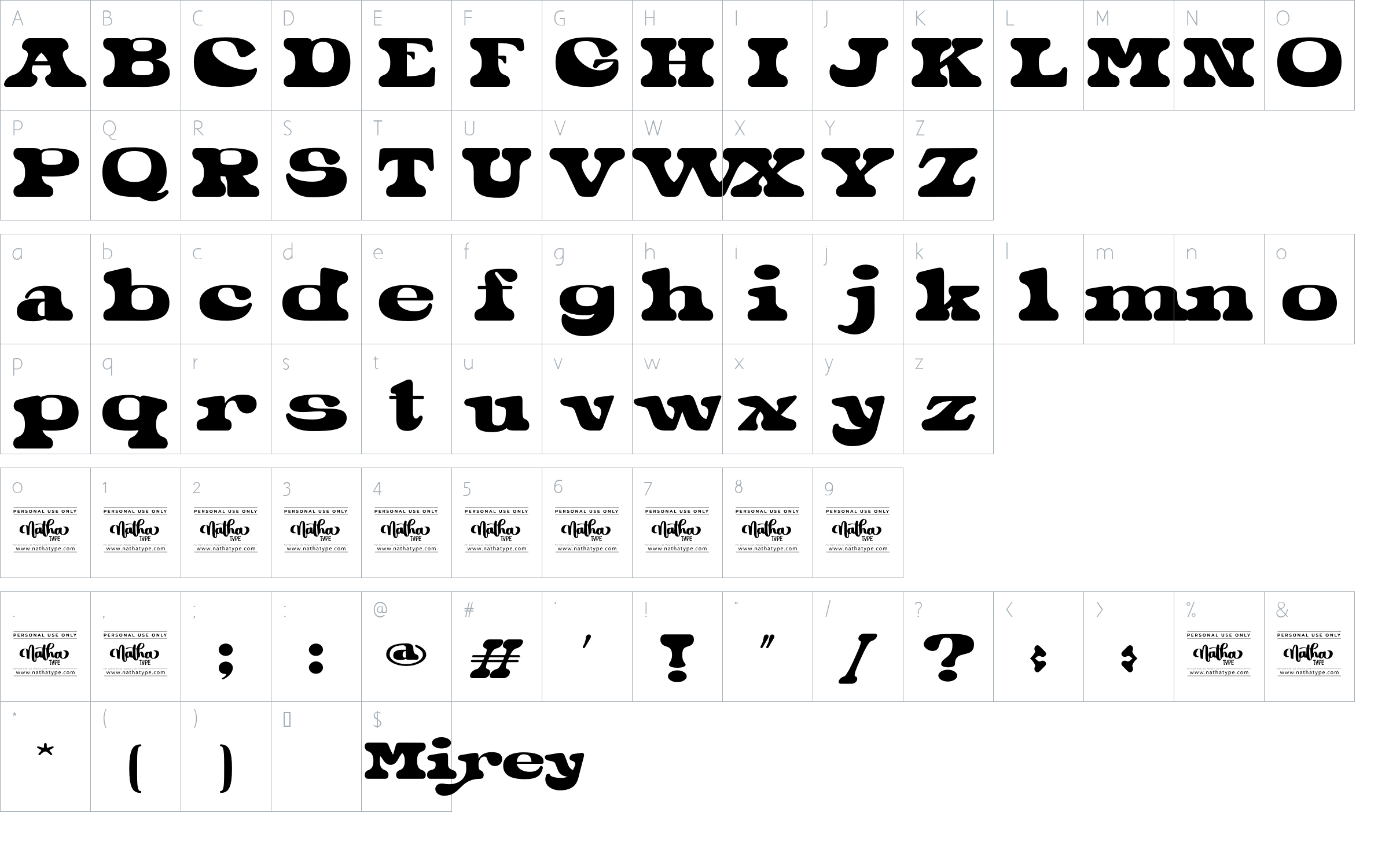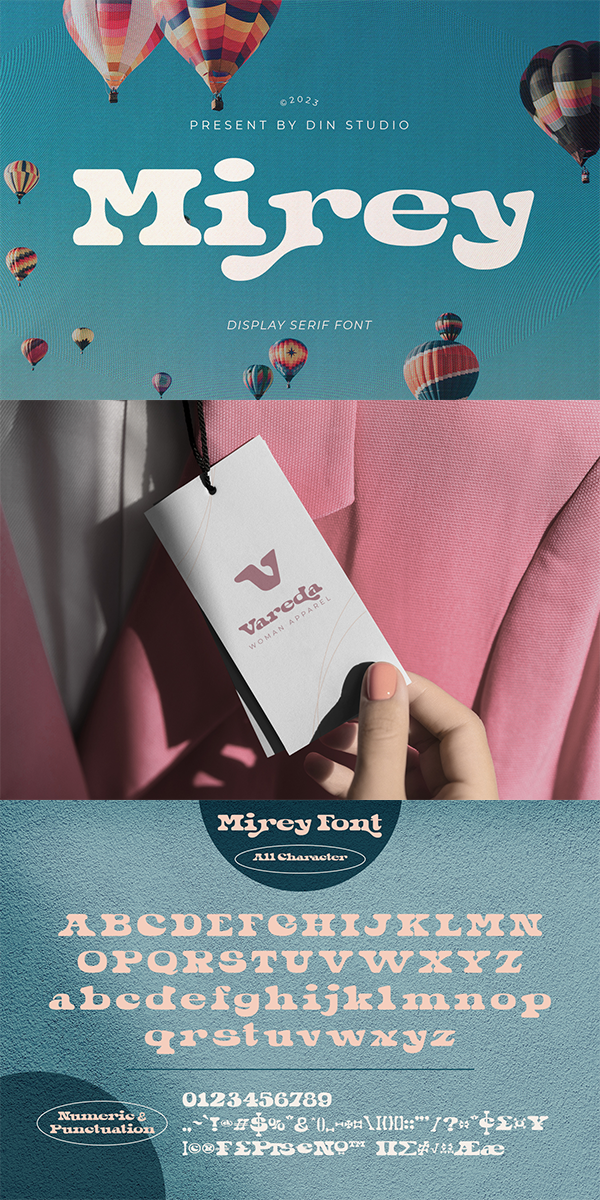
Mirey Font
About Mirey
Mirey is a display serif font in thick weights with small lines on the letters’ edges to look formal and classic. In addition, it expresses unique, artistic touches from its combinations with display font characters. This display font has thick lines and strong contrasts, so that it is perfect to attract attention and to show strong impressions. Due to its high legibility level, this font is applicable for a variety of text sizes. In addition, you can enjoy the available features here.
Mirey fits best for various design projects, such as brandings, posters, banners, headings, magazine covers, quotes, printed products, merchandise, social media, etc. Find out more ways to use this font by taking a look at the font preview.